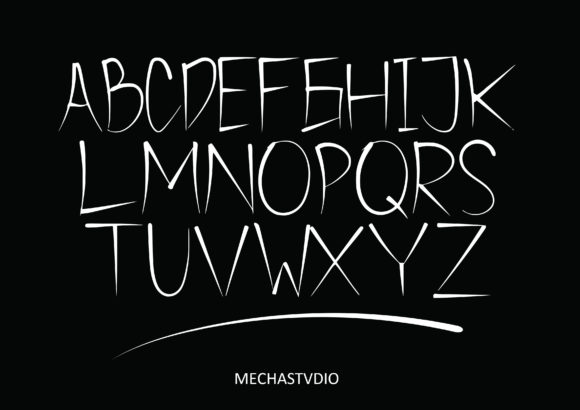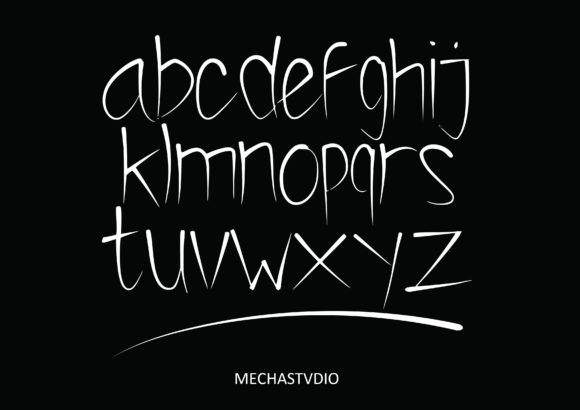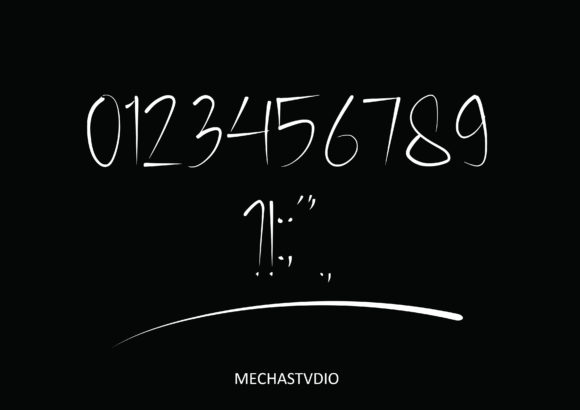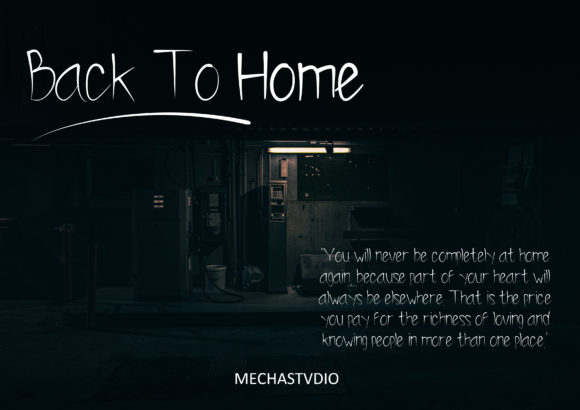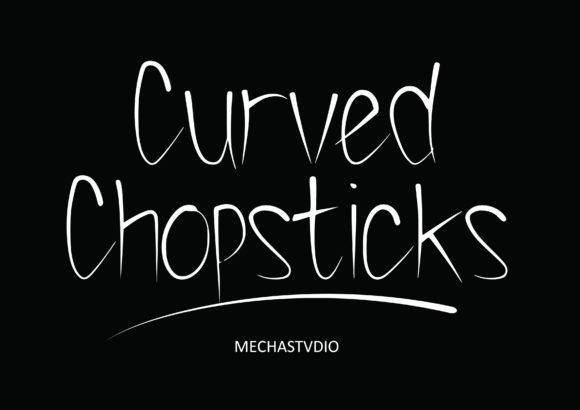
Introducing Curved Chopstick Font: The Modern Script Font You Need
In the world of typography, fonts play a crucial role in making or breaking a design. As a designer or crafter, you’re constantly on the lookout for that perfect font to elevate your project. If you’re searching for a modern script font that exudes elegance and sophistication, look no further than Curved Chopstick Font. In this article, we’ll dive into the world of Curved Chopstick Font, exploring its unique features, benefits, and uses.
What is Curved Chopstick Font?
Curved Chopstick Font is a modern script font that has taken the design world by storm. Its clean, thin, and smooth vibe makes it an instant hit for any design project. This font style is perfect for those who want to add a touch of elegance and sophistication to their work. Whether you’re designing a logo, creating a brand identity, or crafting a beautiful stationery set, Curved Chopstick Font is the perfect choice.
Key Features of Curved Chopstick Font
So, what makes Curved Chopstick Font so special? Here are some of its key features:
- Clean and Thin Lines: Curved Chopstick Font boasts clean and thin lines that give it a sleek and modern look.
- Smooth Curves: The font features smooth curves that add to its elegance and sophistication.
- Modern Script Style: Curved Chopstick Font is a modern script font that is perfect for designs that require a touch of elegance.
- Versatile: This font is versatile and can be used for a variety of design projects, from logos and branding to stationery and packaging.
Benefits of Using Curved Chopstick Font
Using Curved Chopstick Font in your design projects comes with a host of benefits. Here are some of the advantages of using this font:
- Elegance and Sophistication: Curved Chopstick Font adds a touch of elegance and sophistication to any design project.
- Unique and Modern: This font is unique and modern, making it perfect for designs that require a fresh and contemporary look.
- Easy to Read: Despite its thin lines, Curved Chopstick Font is easy to read, making it perfect for body text and headlines.
- Scalable: This font is scalable, meaning it can be used in a variety of sizes without losing its quality.
Uses of Curved Chopstick Font
Curved Chopstick Font is a versatile font that can be used in a variety of design projects. Here are some of the ways you can use this font:
- Logo Design: Use Curved Chopstick Font to create a unique and elegant logo for your brand.
- Branding and Identity: This font is perfect for creating a cohesive brand identity that exudes elegance and sophistication.
- Stationery and Packaging: Curved Chopstick Font is perfect for designing beautiful stationery sets, including business cards, letterheads, and packaging.
- Web Design: Use this font to add a touch of elegance and sophistication to your website.
Tips for Using Curved Chopstick Font
Here are some tips for using Curved Chopstick Font in your design projects:
- Pair it with Bold Fonts: Pair Curved Chopstick Font with bold fonts to create a striking contrast.
- Use it for Headlines and Titles: Use this font for headlines and titles to add a touch of elegance and sophistication.
- Experiment with Colors: Experiment with different colors to find the perfect combination that works with Curved Chopstick Font.
| Font Name | Curved Chopstick Font |
| Author | MechaStudio |
In conclusion, Curved Chopstick Font is a modern script font that is perfect for designers and crafters who want to add a touch of elegance and sophistication to their work. Its clean, thin, and smooth vibe makes it an instant hit for any design project. With its versatility, unique features, and benefits, Curved Chopstick Font is a must-have font for any designer or crafter.